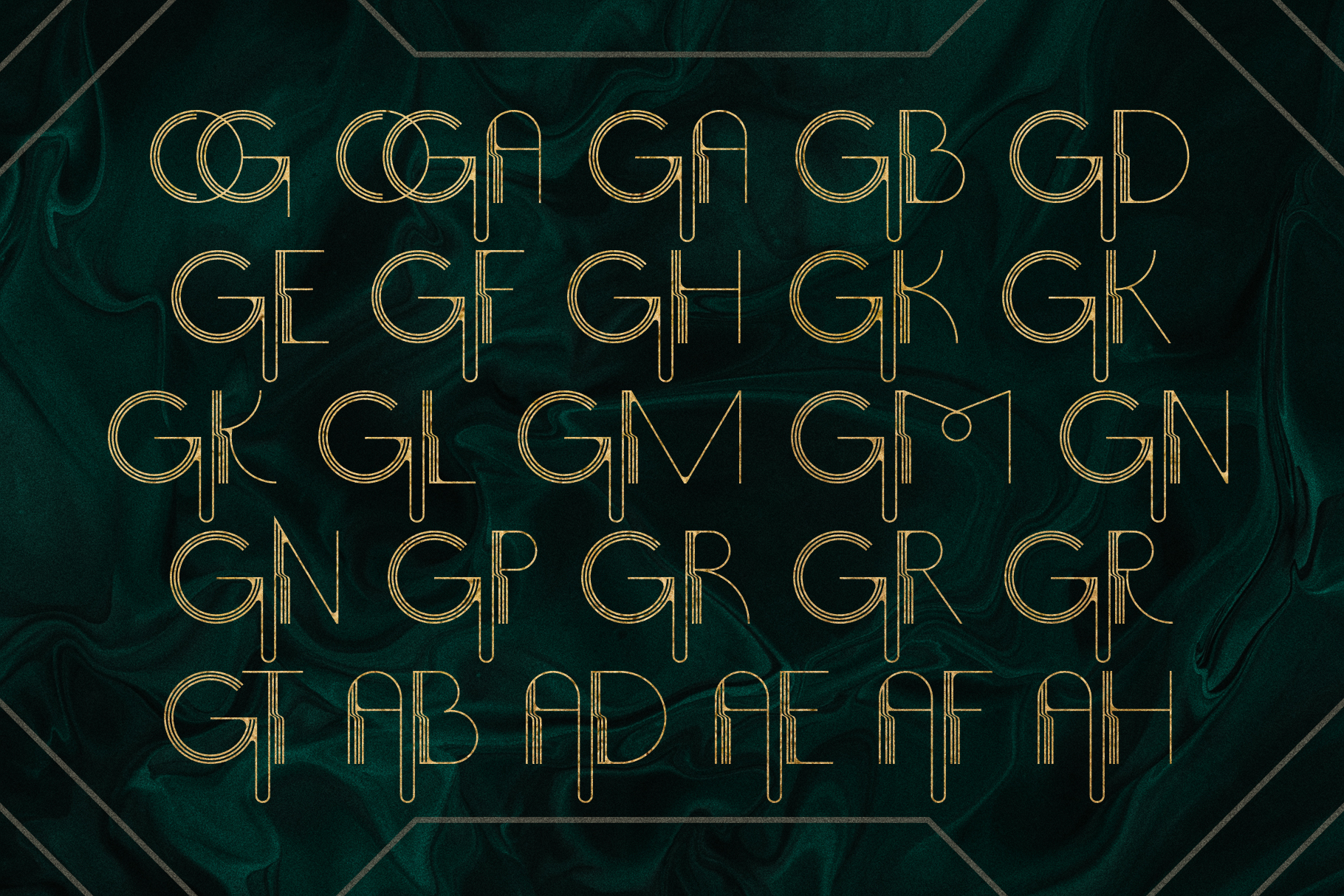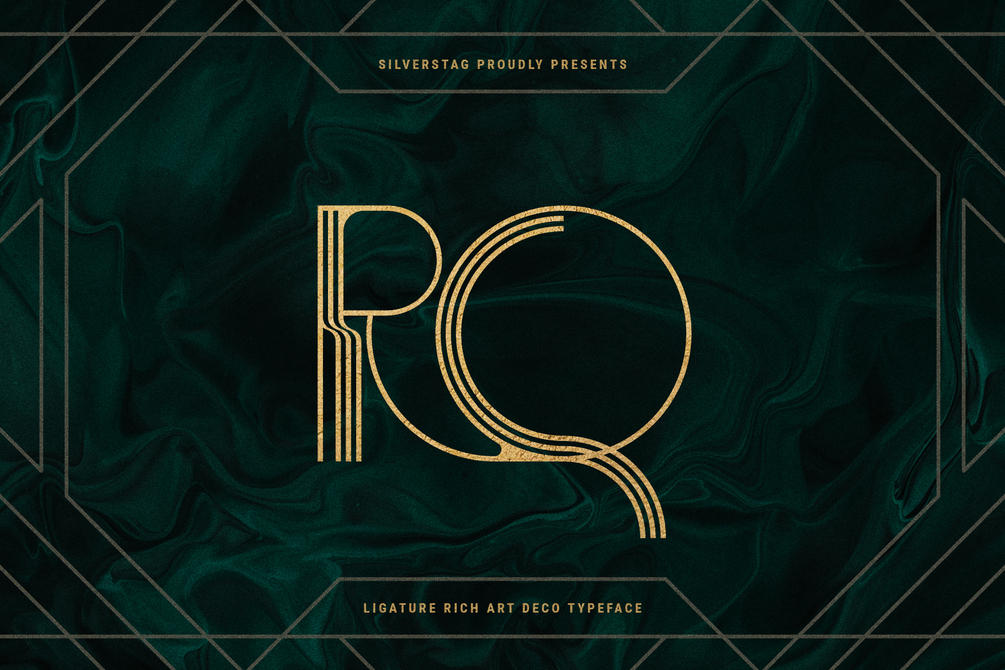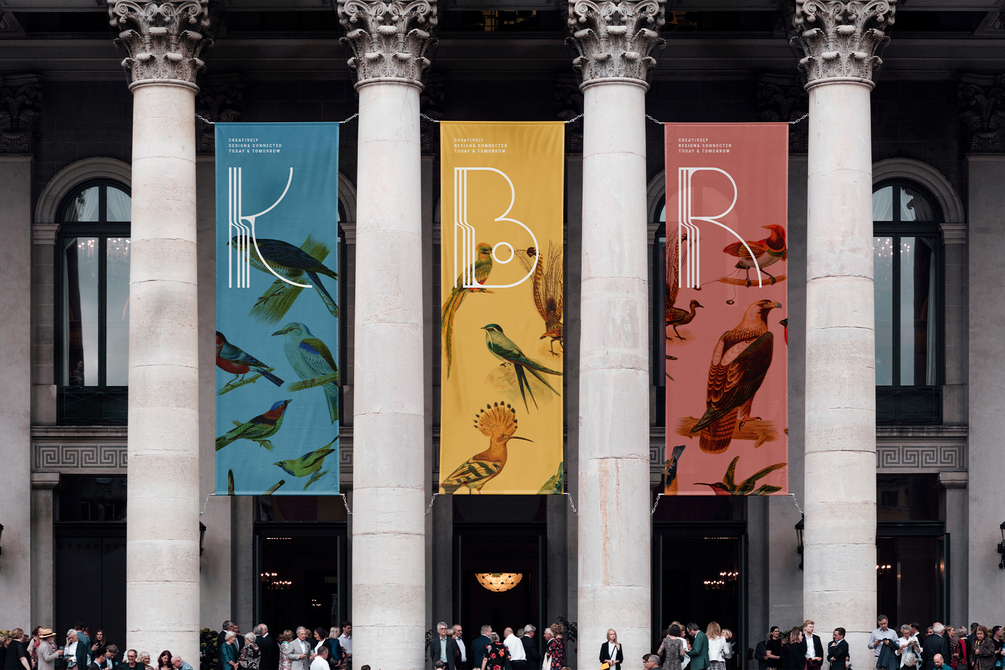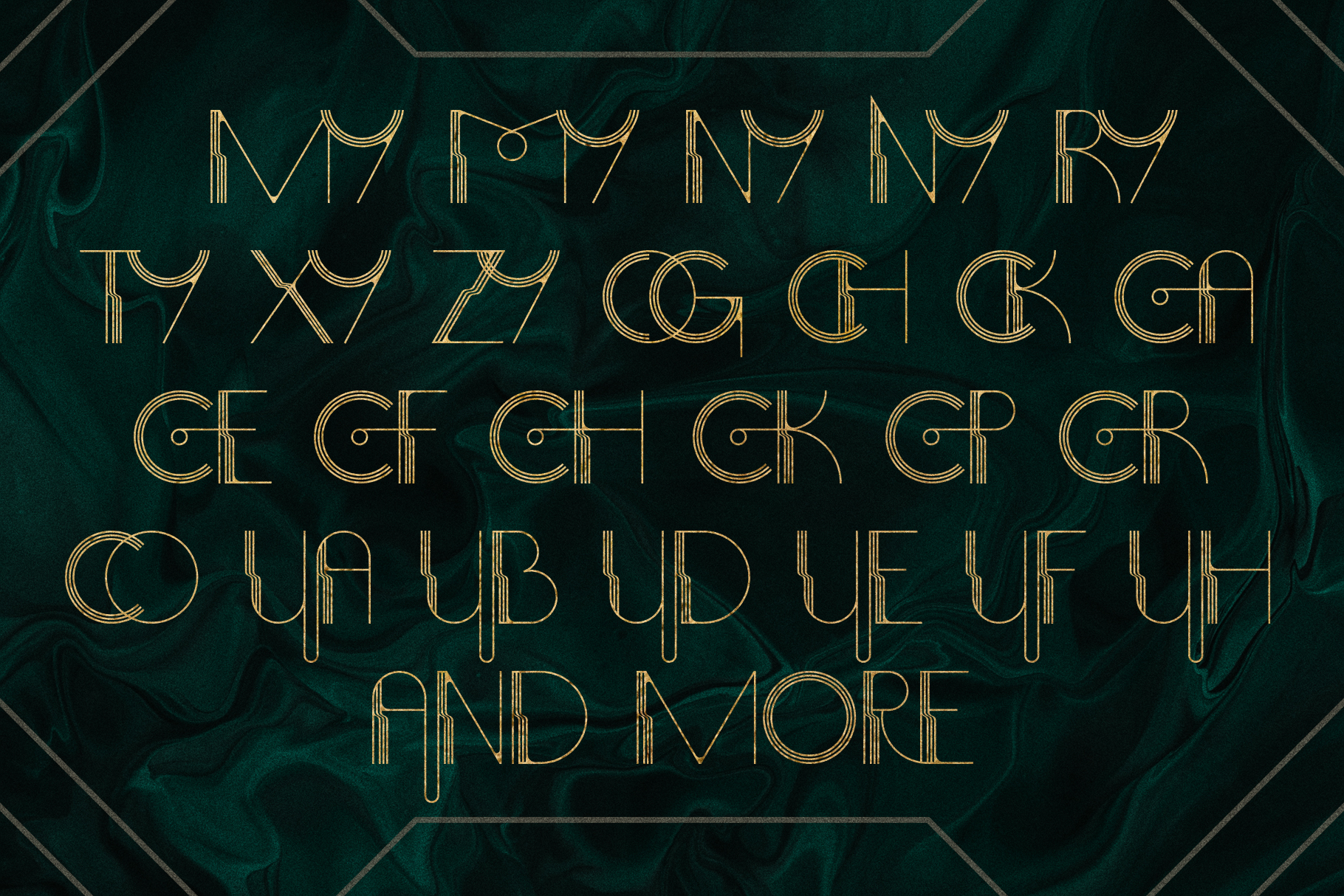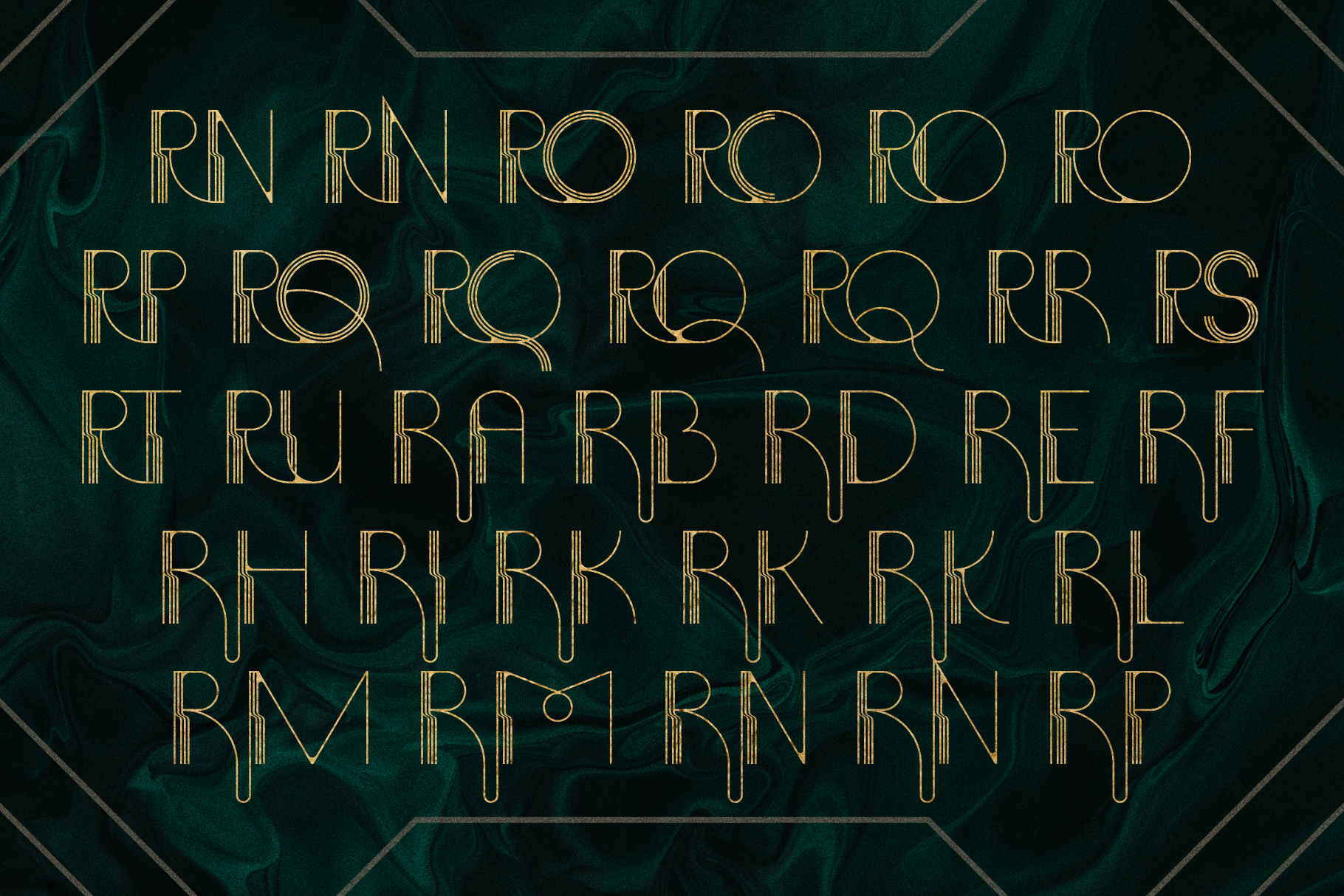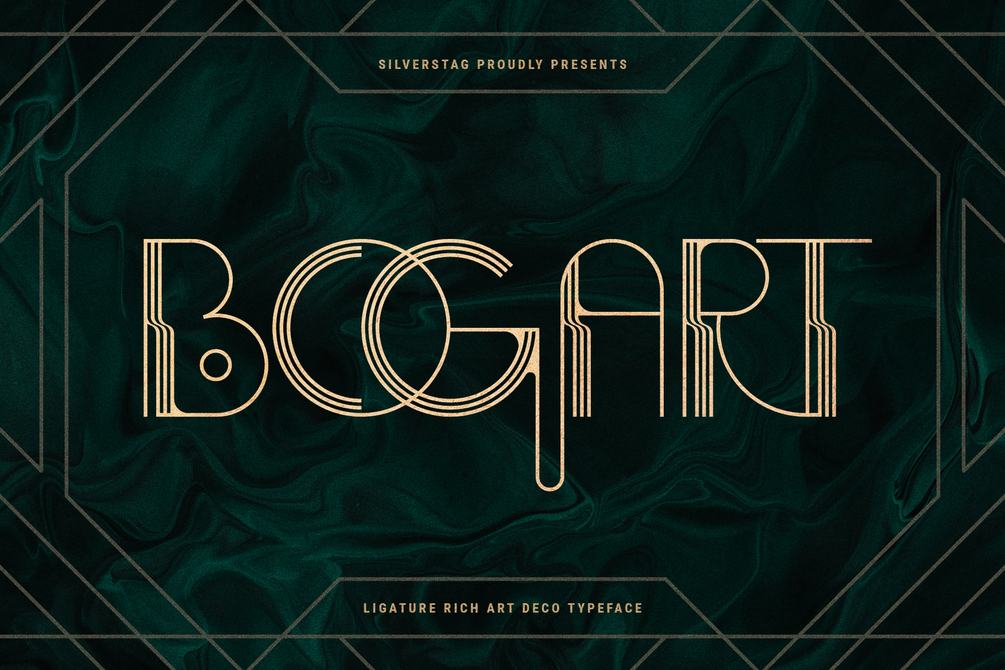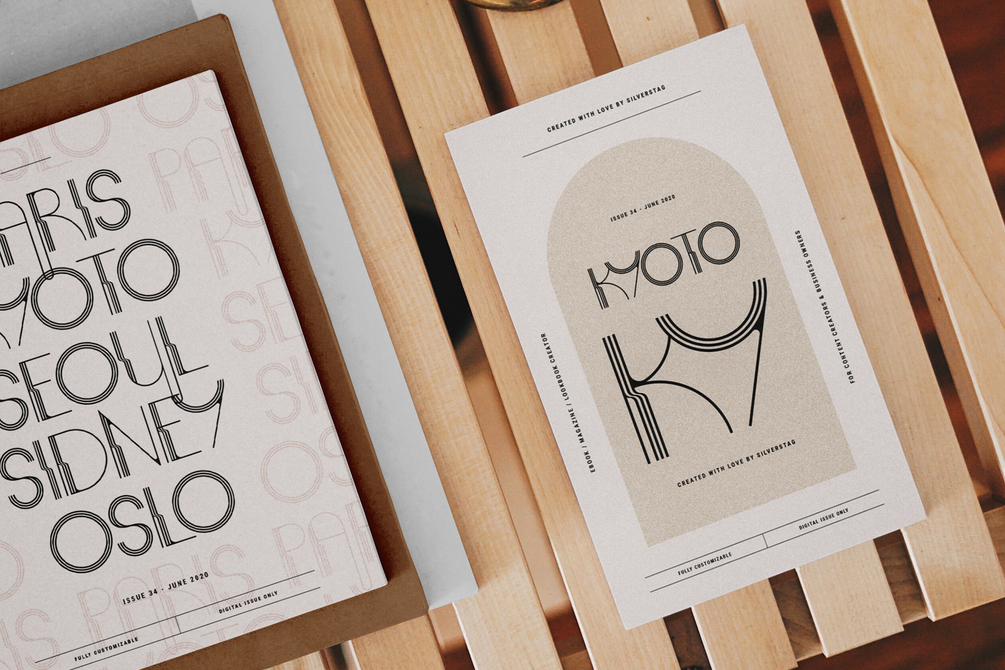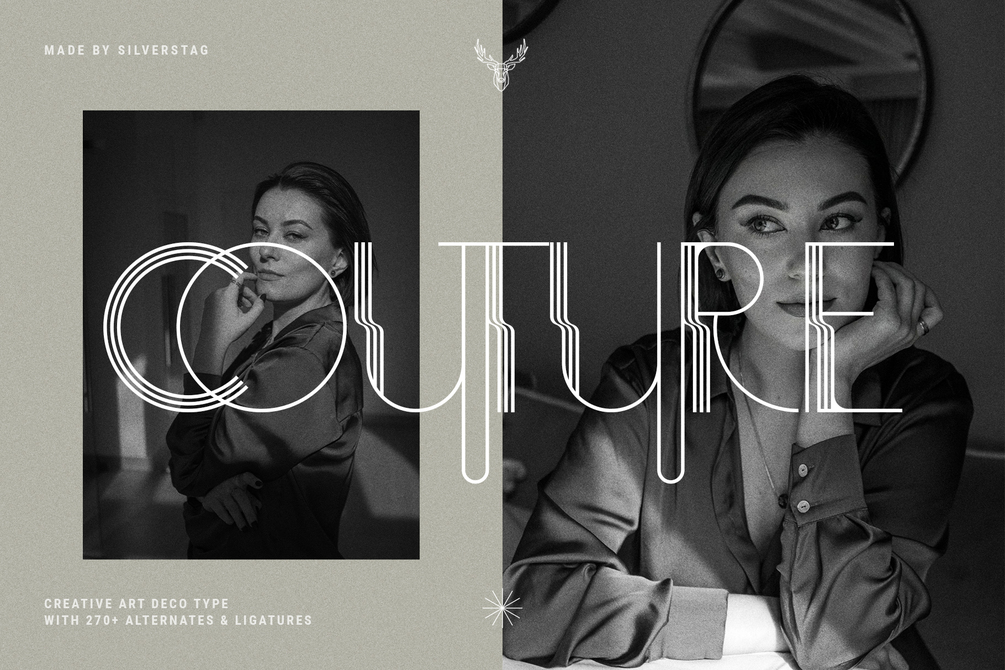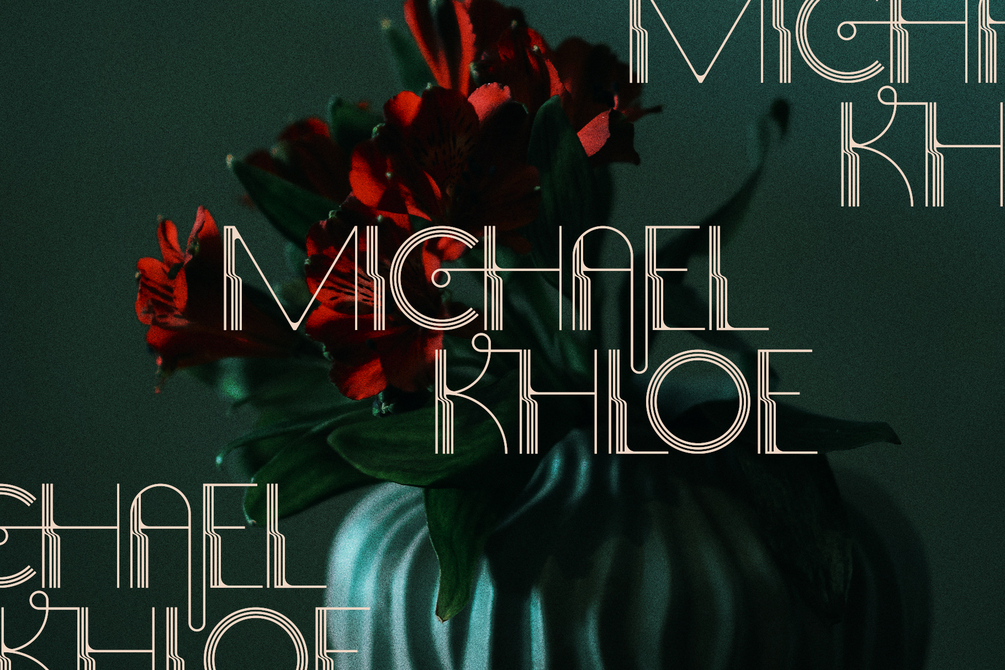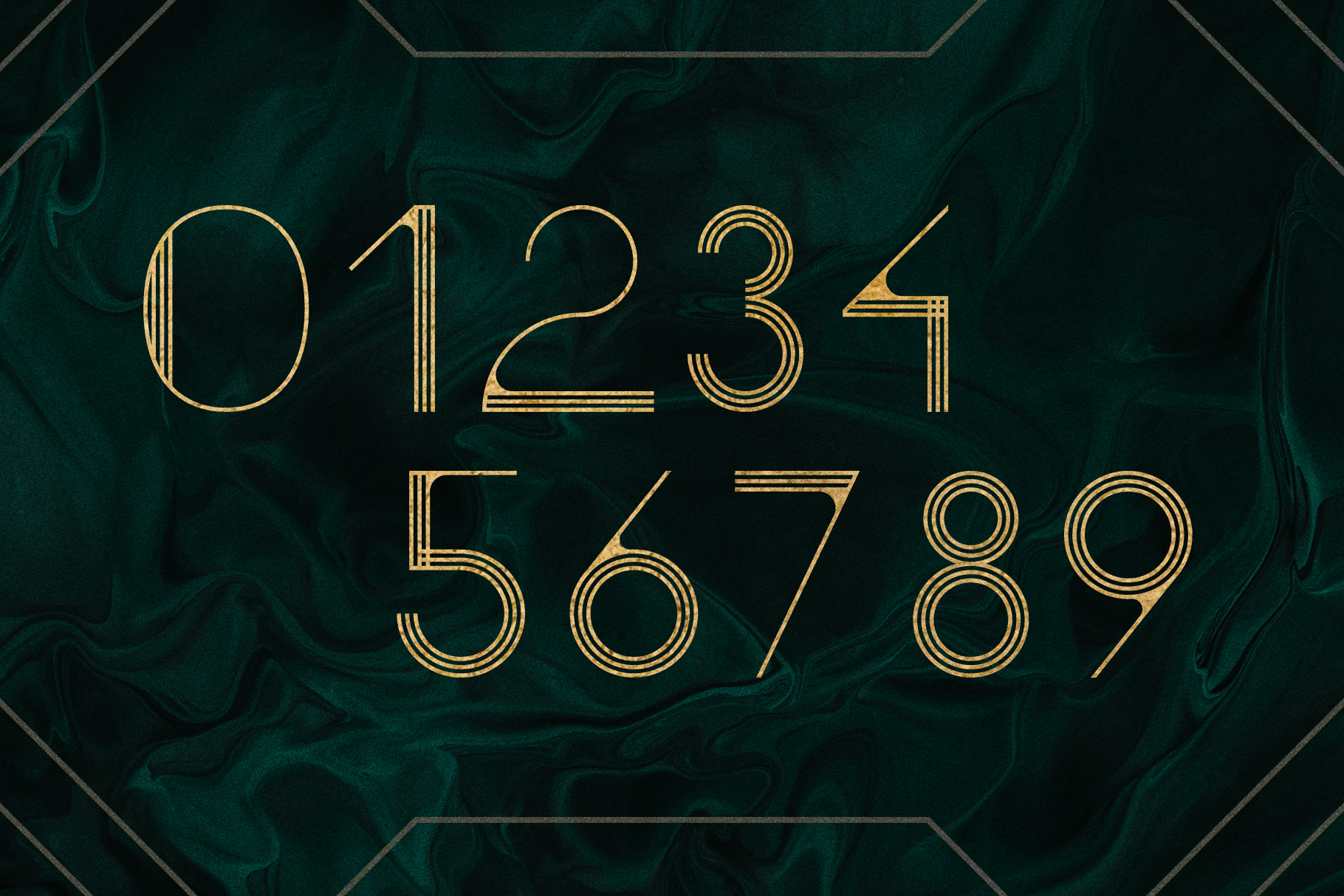
BOGART Deco - Ligature Rich Art Deco Typeface
If you've been looking for an Art Deco font that is perfect for 2022, look no further. BogArt Deco is my take on how a complete and unique art deco typeface should look like. It was inspired by art deco, a style of visual arts, architecture and design that first appeared in France. It is a geometric stylish font full of alternate letters & ligatures - over 270 of them - check out the slides above and see them all for yourself.
I invite you to check out the preview images, and I hope you will be immersed in my vision for this creative typeface that, I am sure, will work for all kinds of interesting projects you might be working on this year.